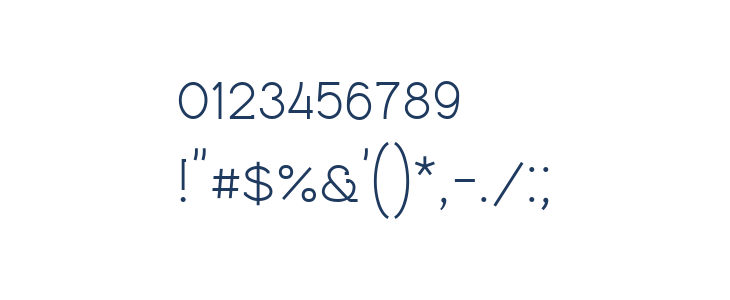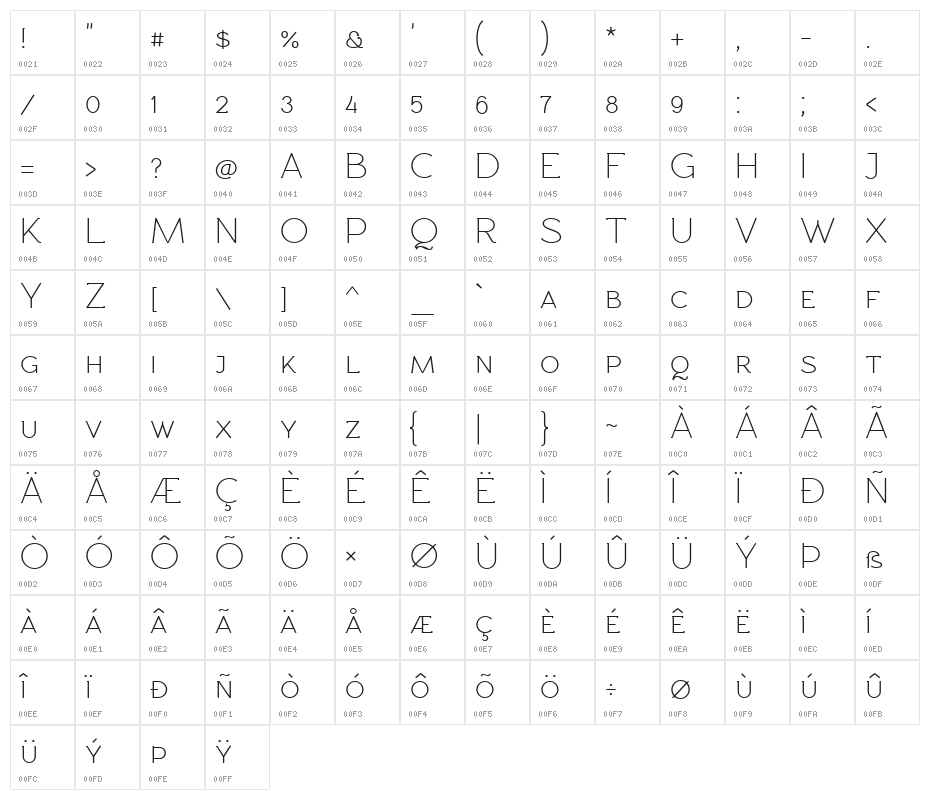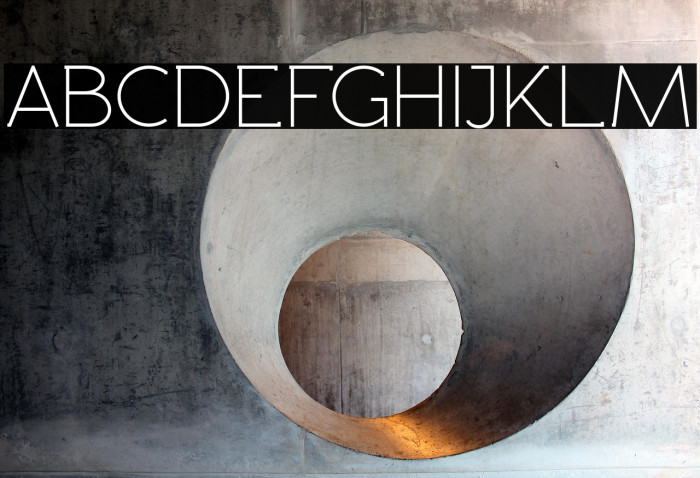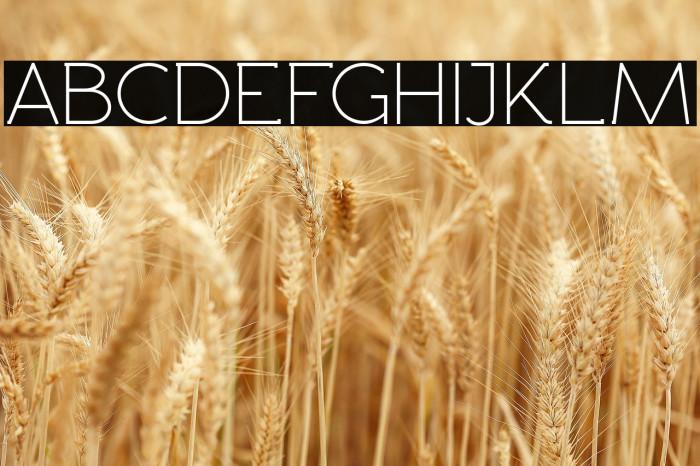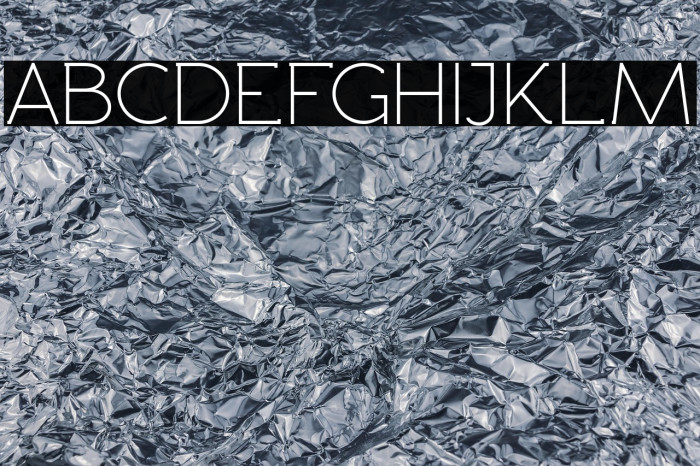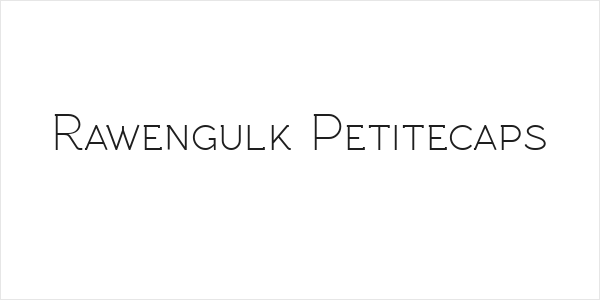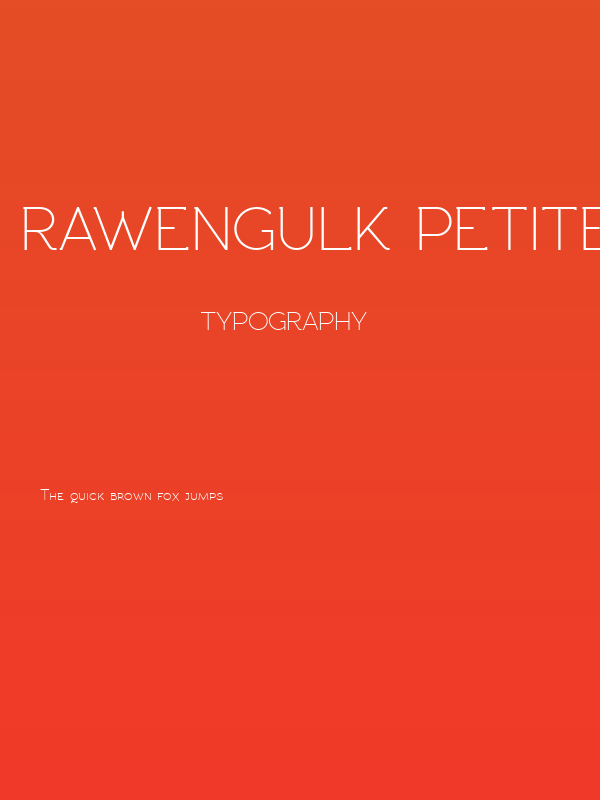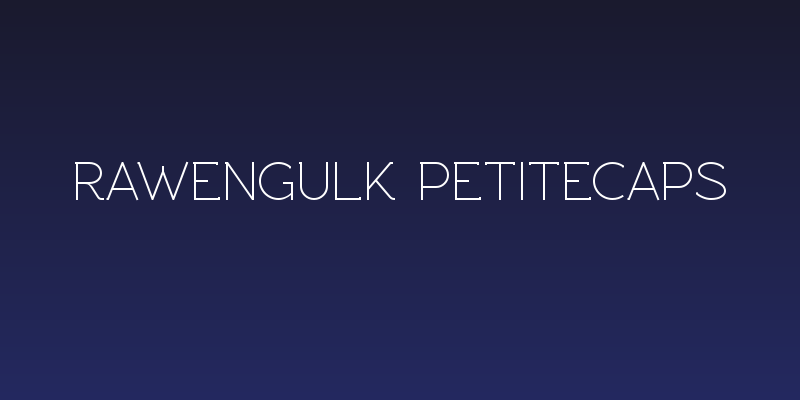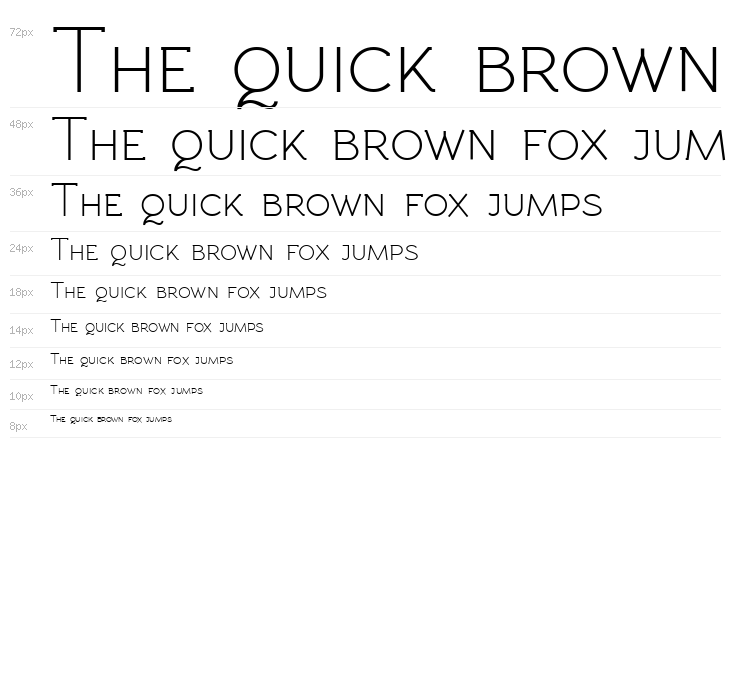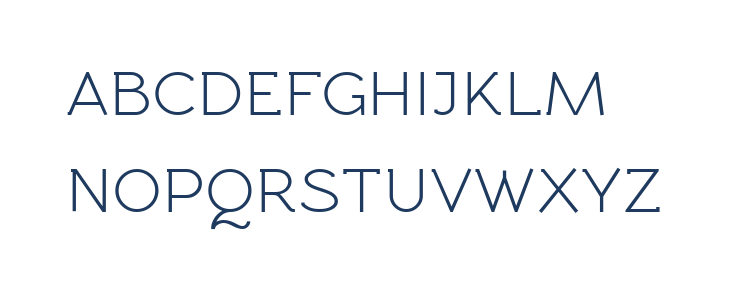
Rawengulk Petitecaps Font
Rawengulk Petitecaps Description
This font features a clean and modern aesthetic with a geometric sans-serif style. The characters are well-proportioned, with a uniform stroke width that gives it a sleek and contemporary look. The uppercase and lowercase letters are distinct yet harmonious, maintaining a consistent height and width that enhances readability. The numerals are clear and straightforward, matching the overall minimalist design. Special characters are elegantly integrated, maintaining the font's cohesive appearance. This font is versatile, suitable for both digital and print media, offering a professional and polished look.